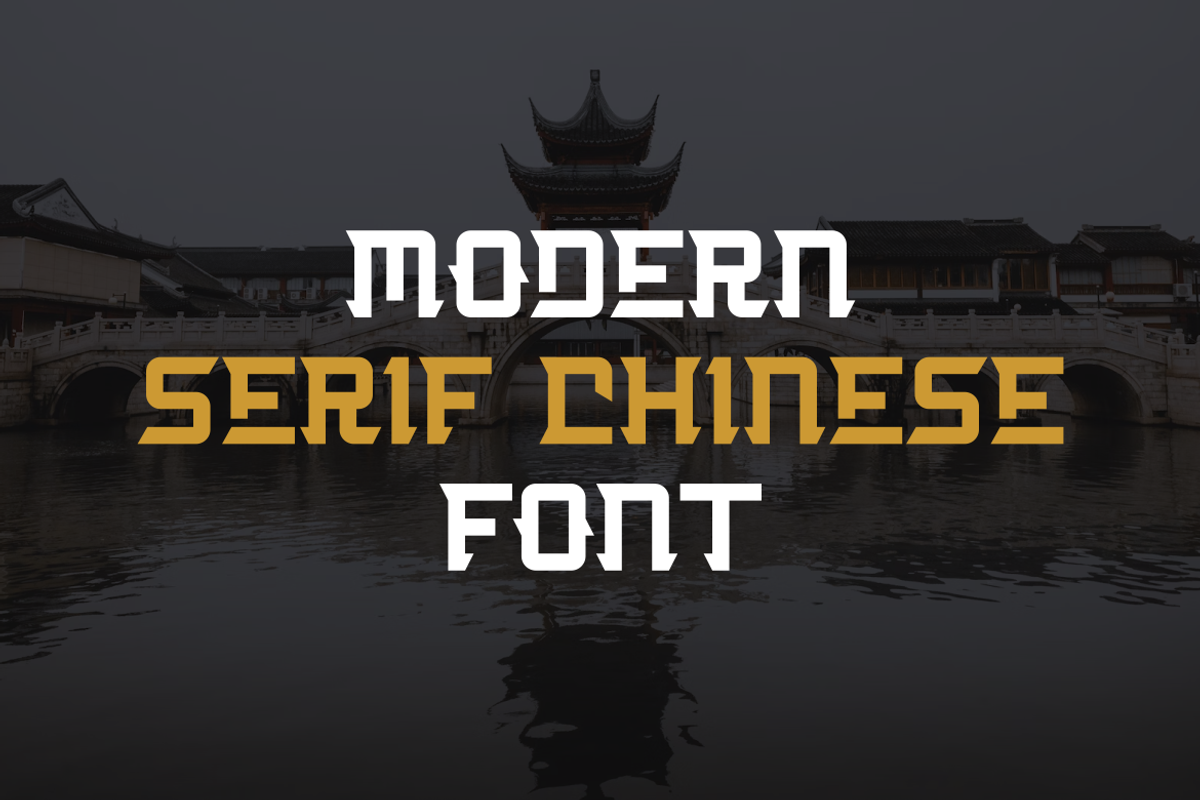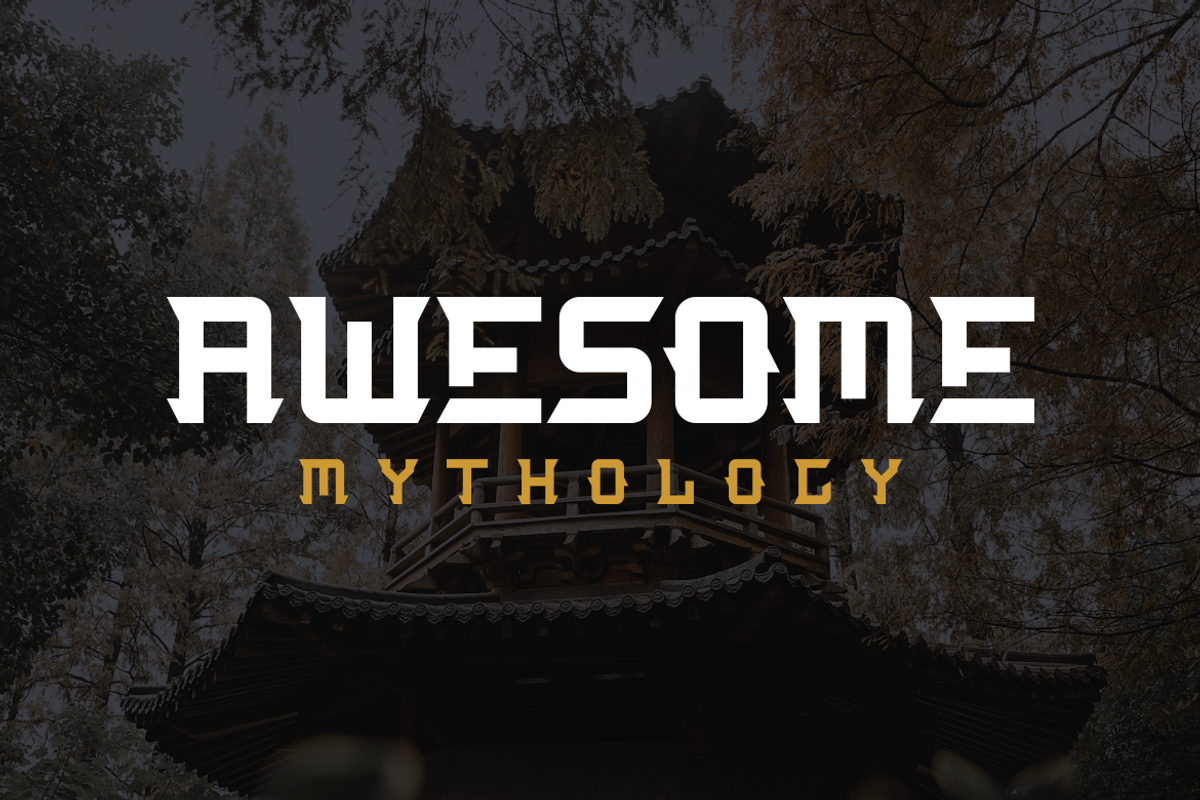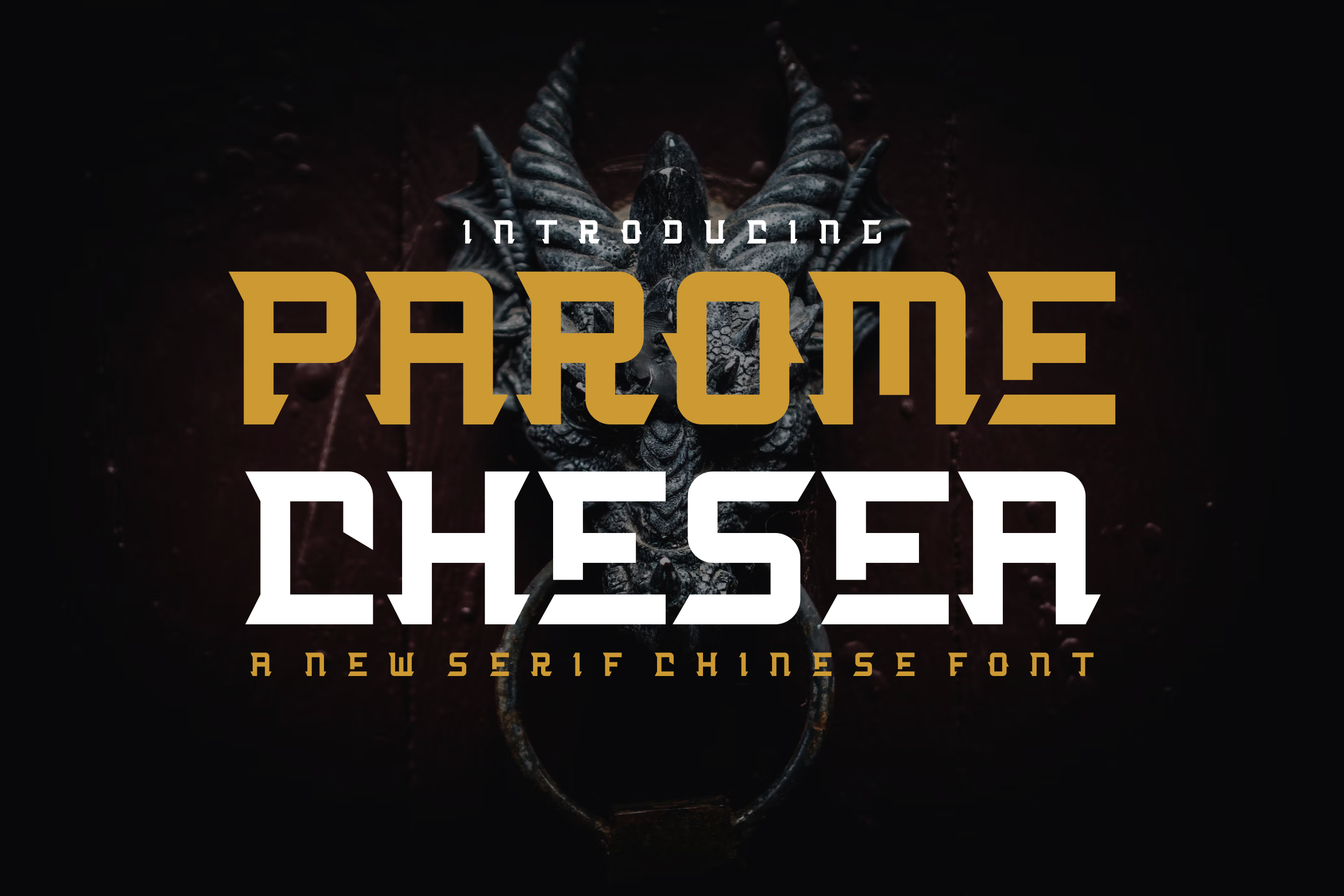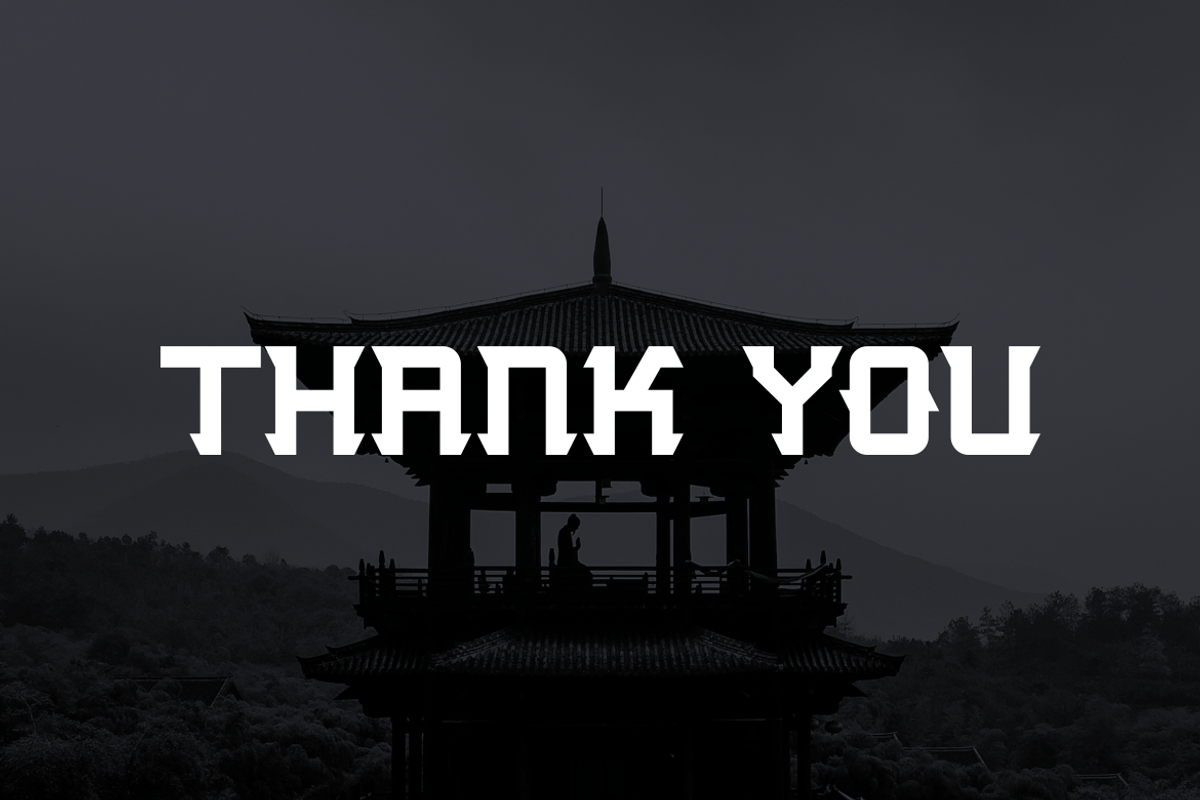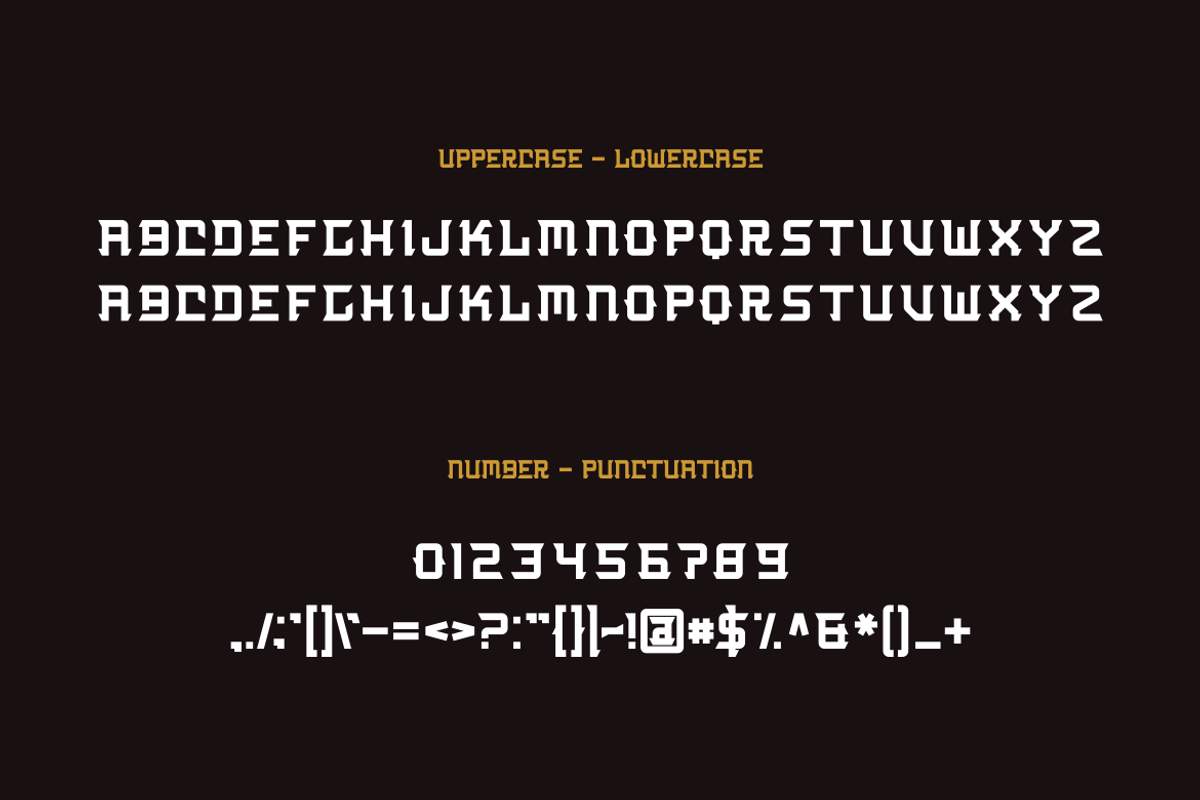
Parome Chesea - Font
- Modern Font is a bold and authentic display font. The font is suitable for any branding project like logo, t-shirt printing,, and many more. outstanding in a wide range of contexts.